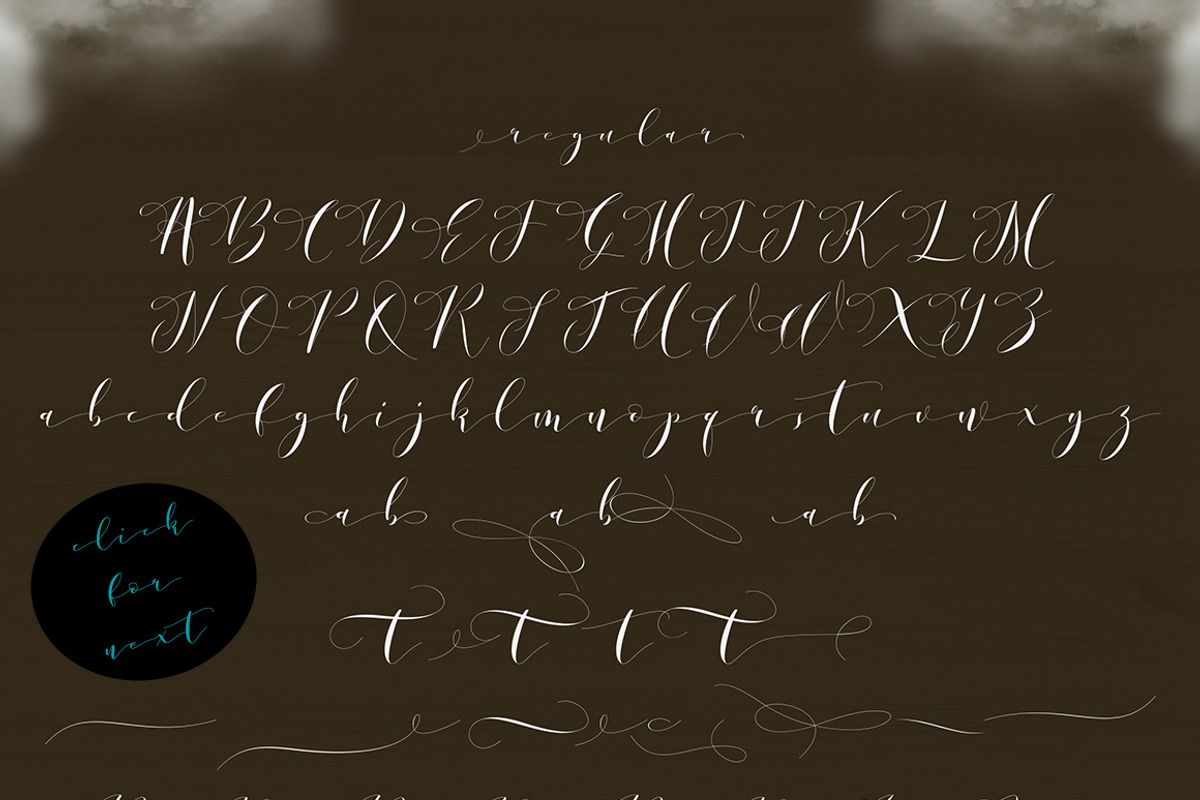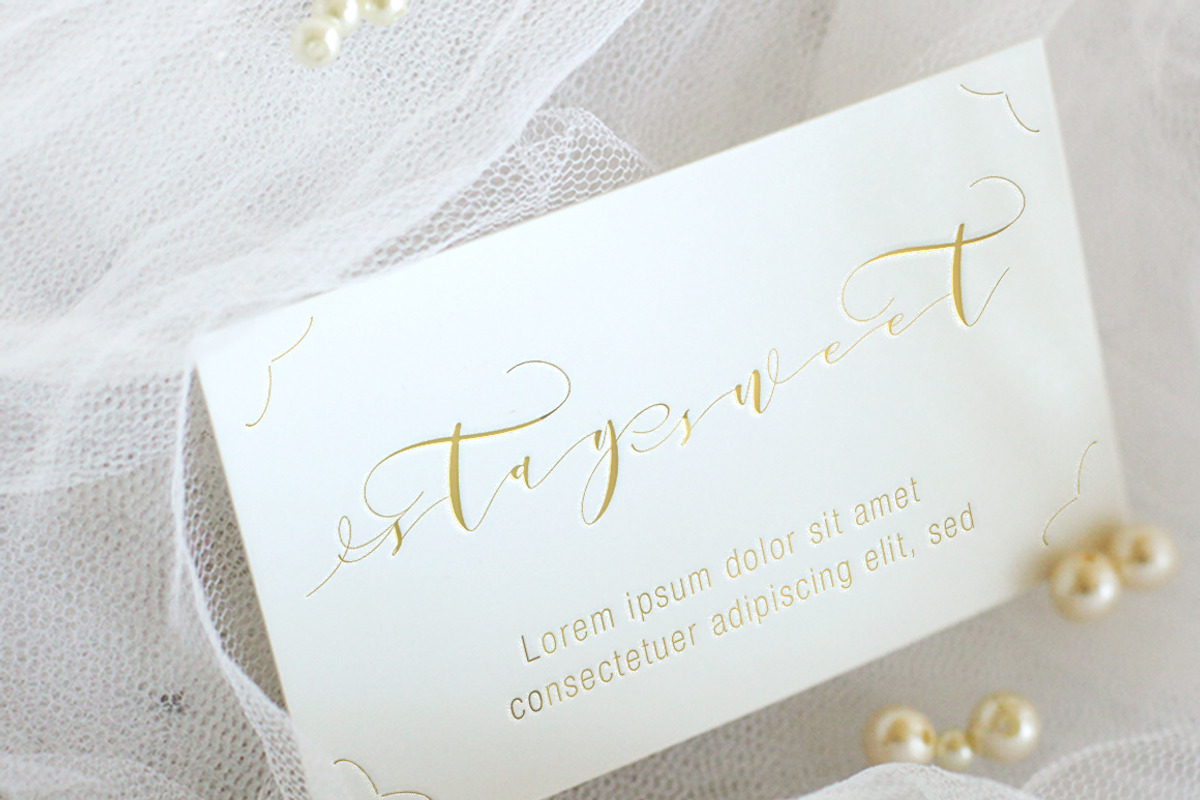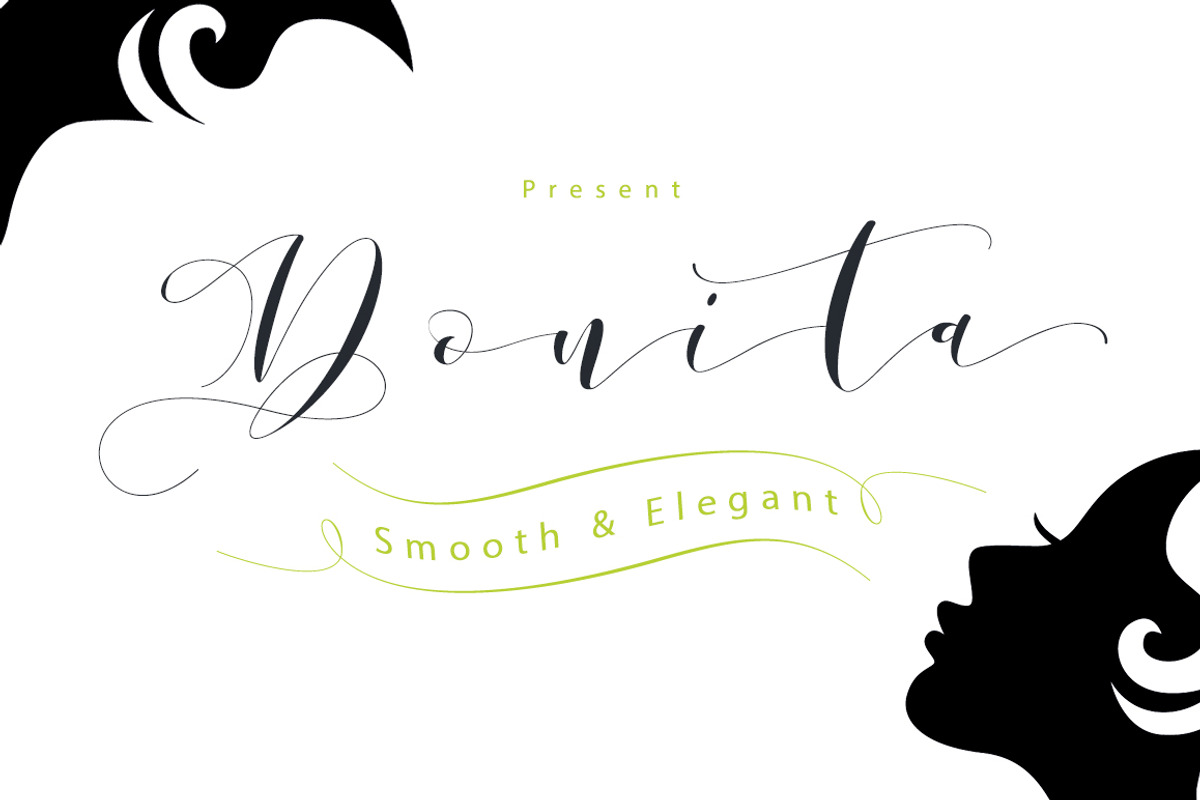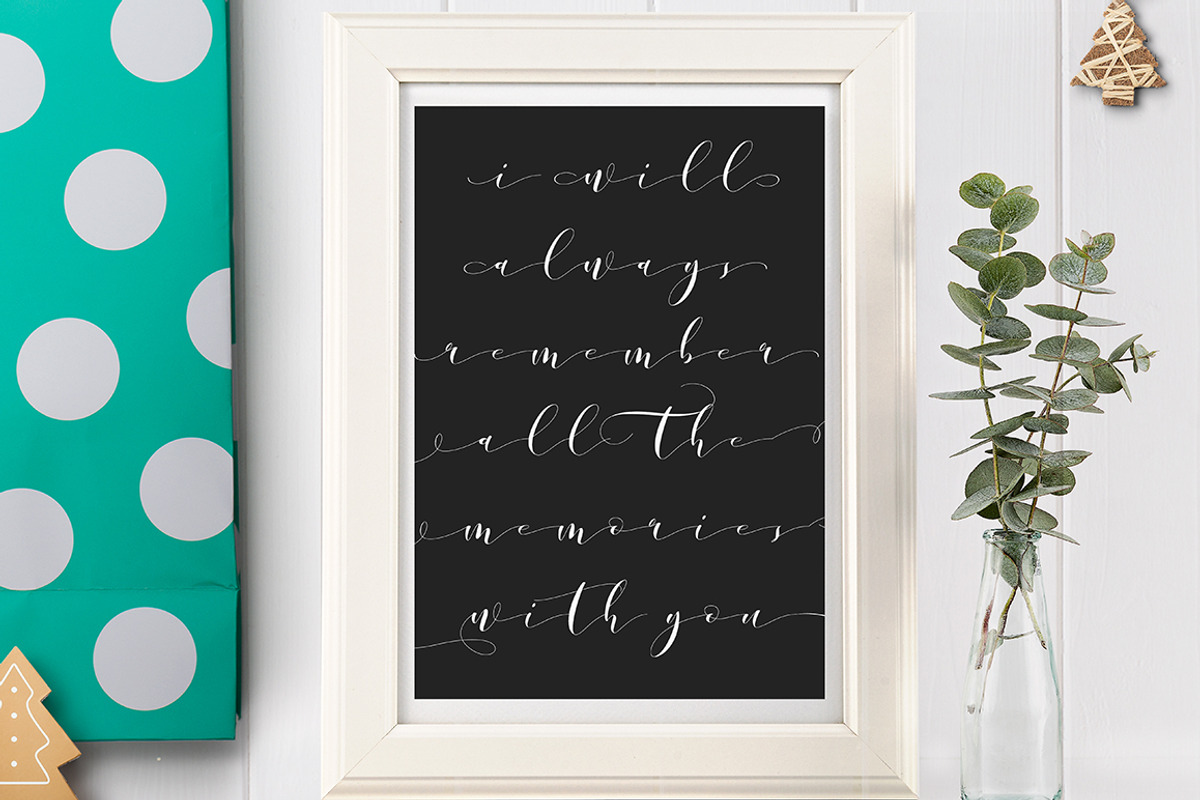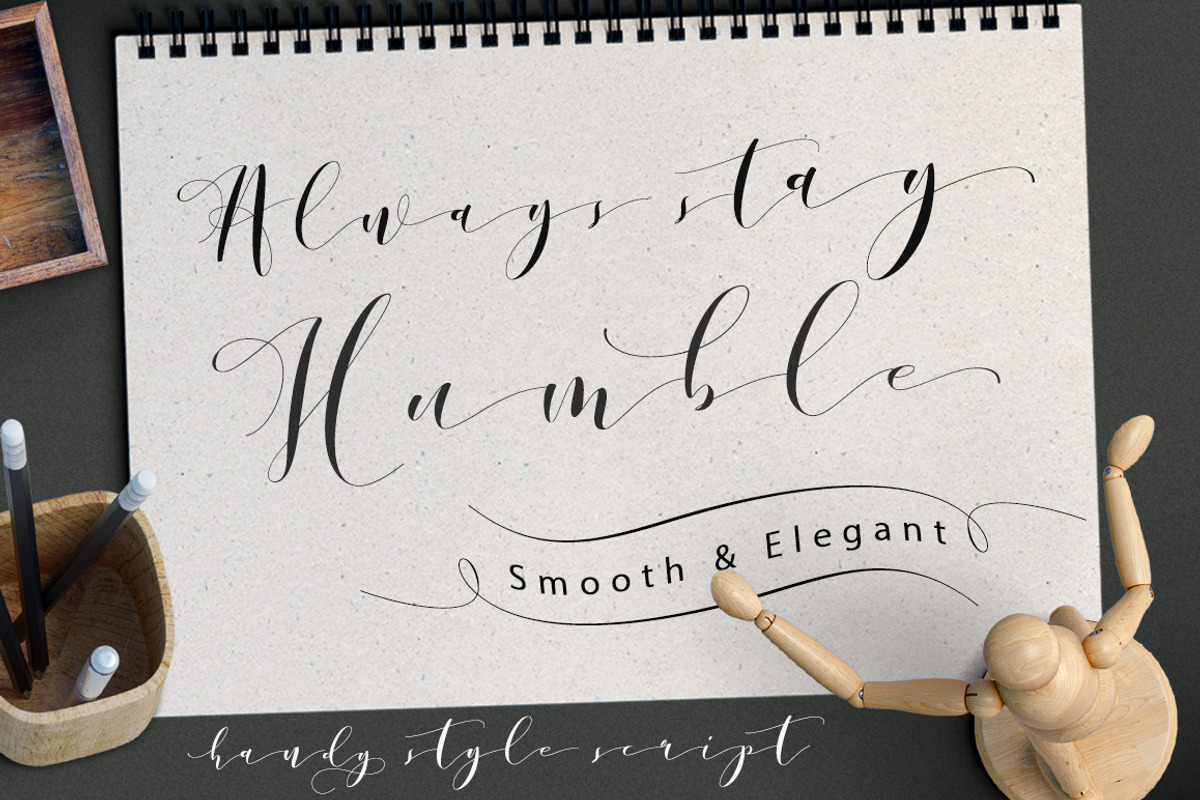
Donita Handscript
Donita Script is a new varieties of handlettered script font, allowing you to completely make-each word look stylish! With smooth style and petite, elegant with a long thin connections that make it look luxurious and original. Donita comes with a total of 385 glyphs complete with swooshes
So you can make each piece as needed. You are must to remember, this is a thin and small fonts.